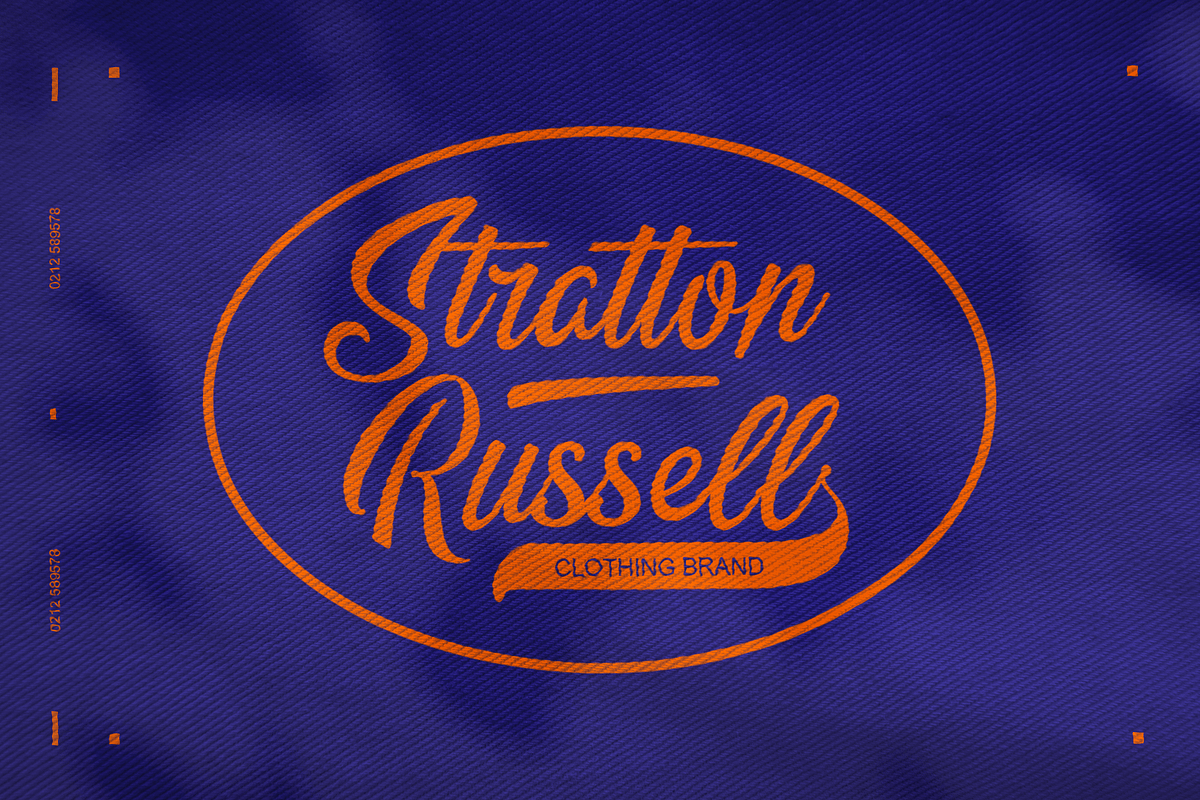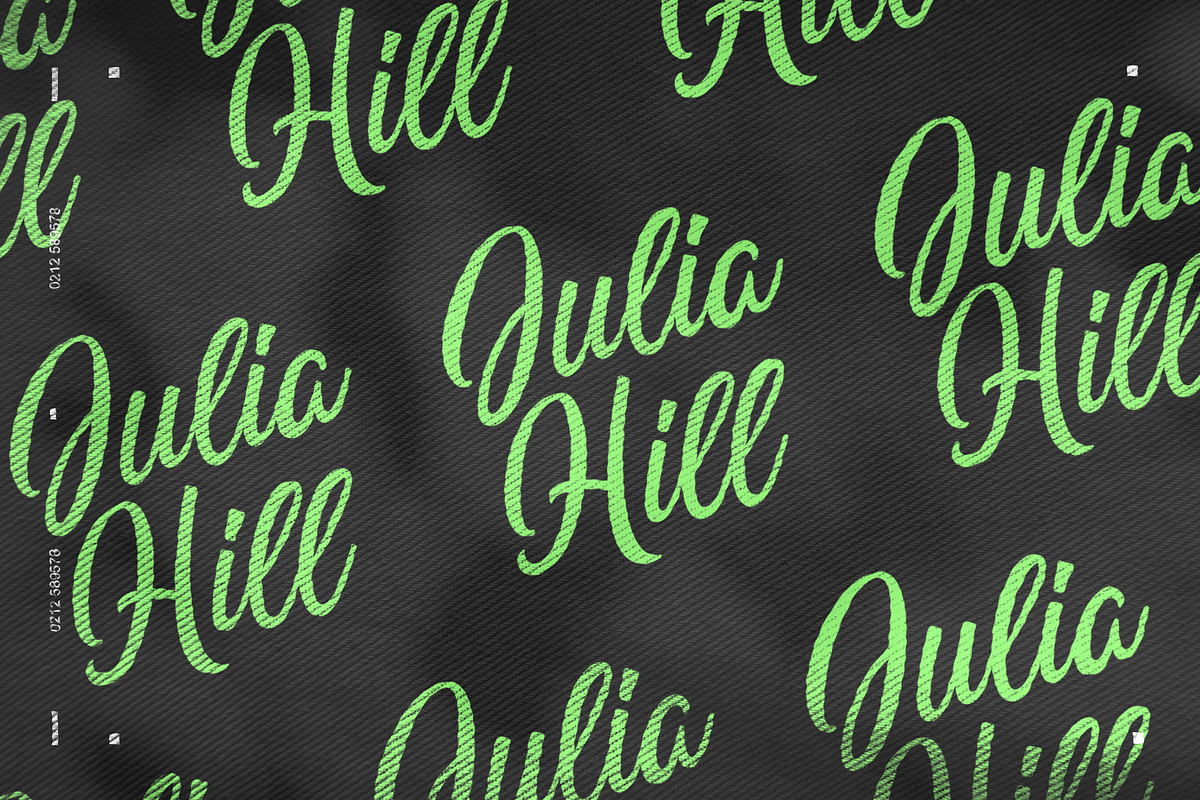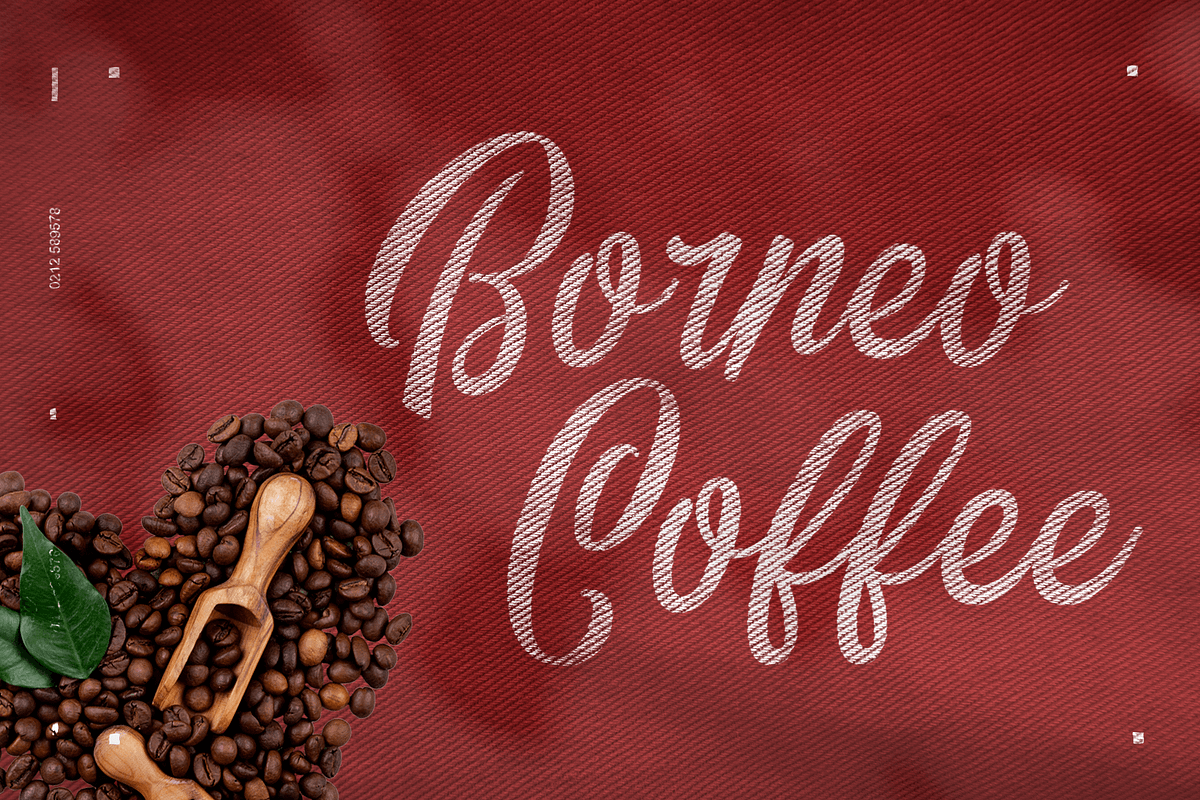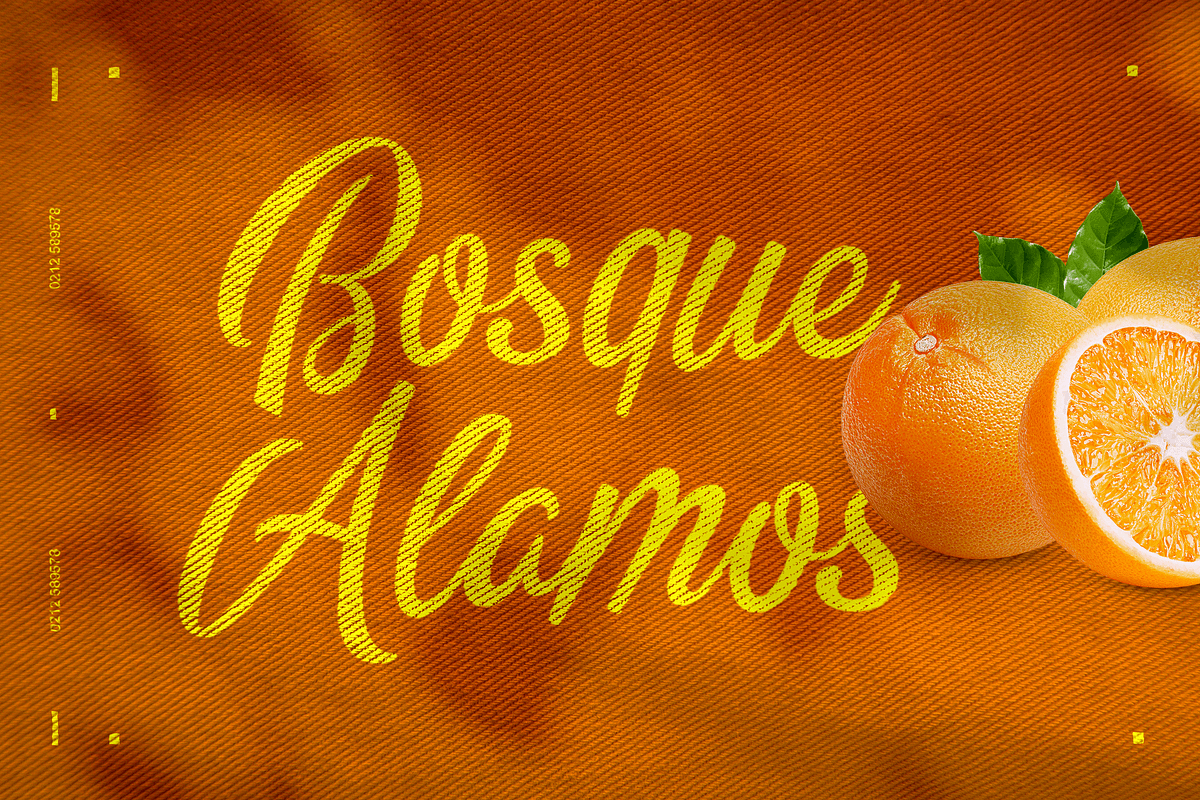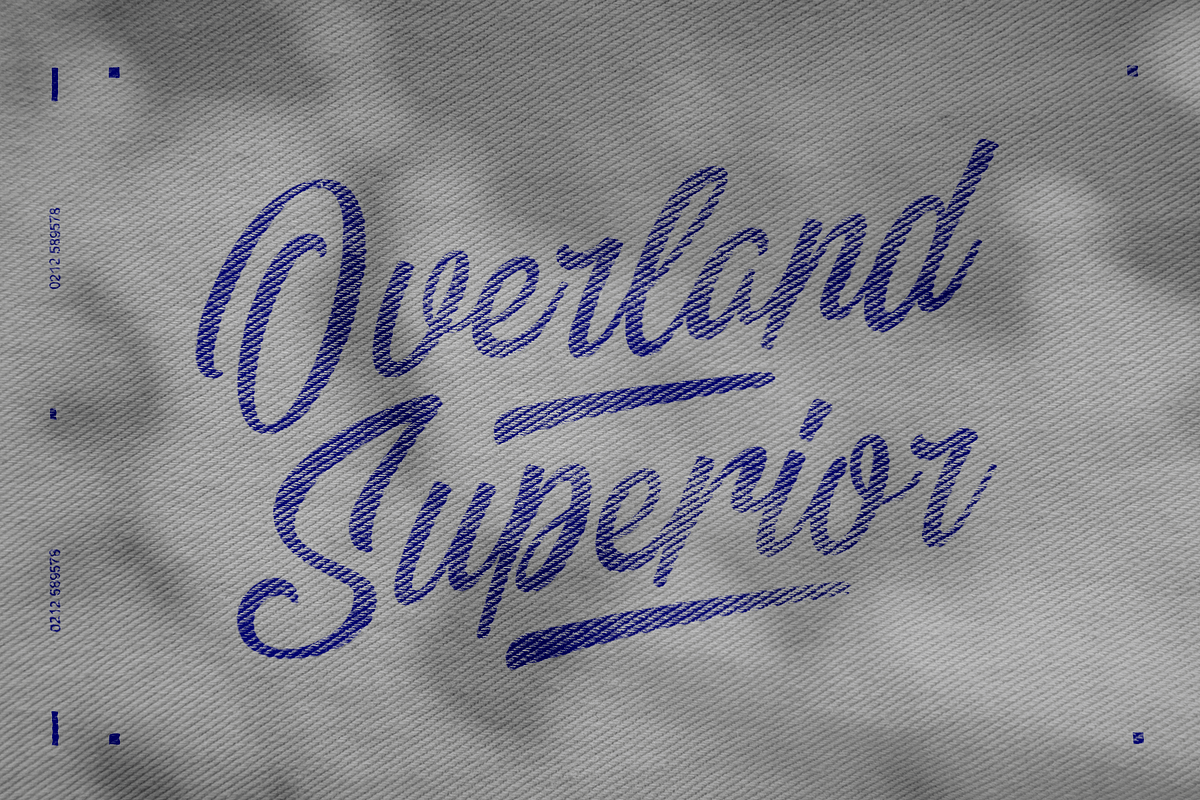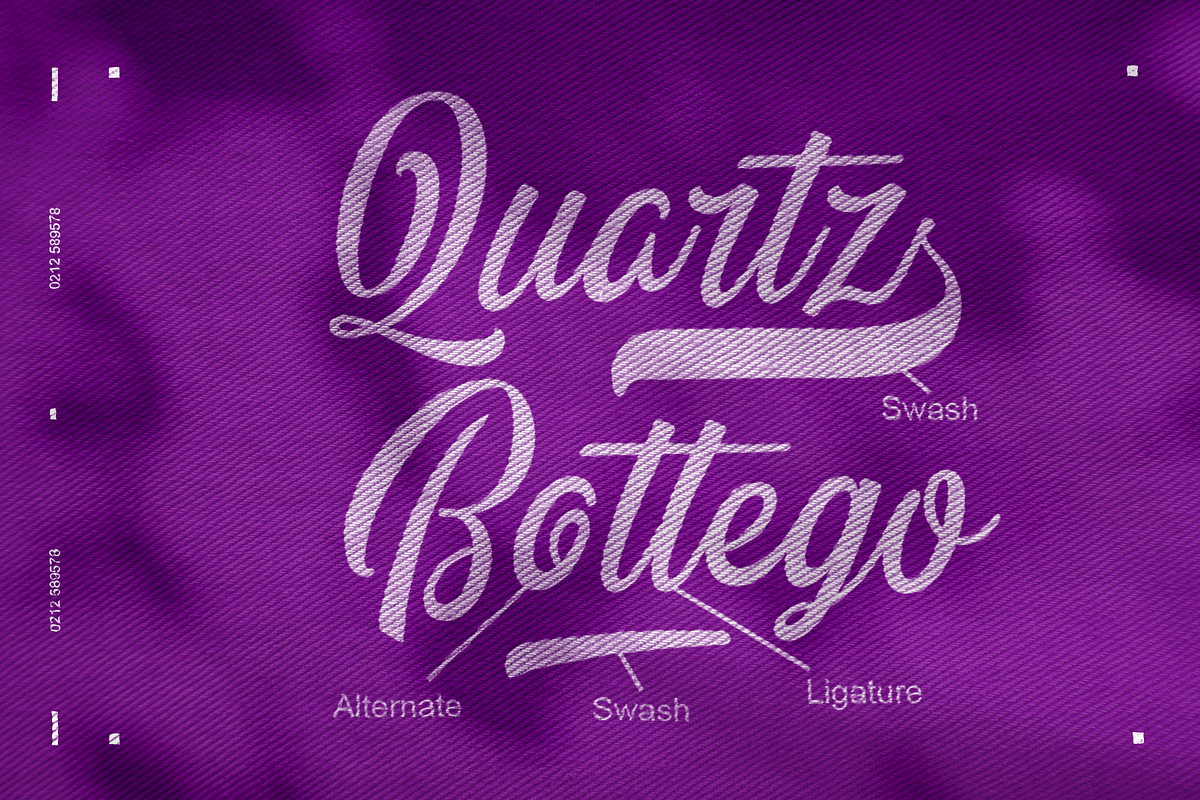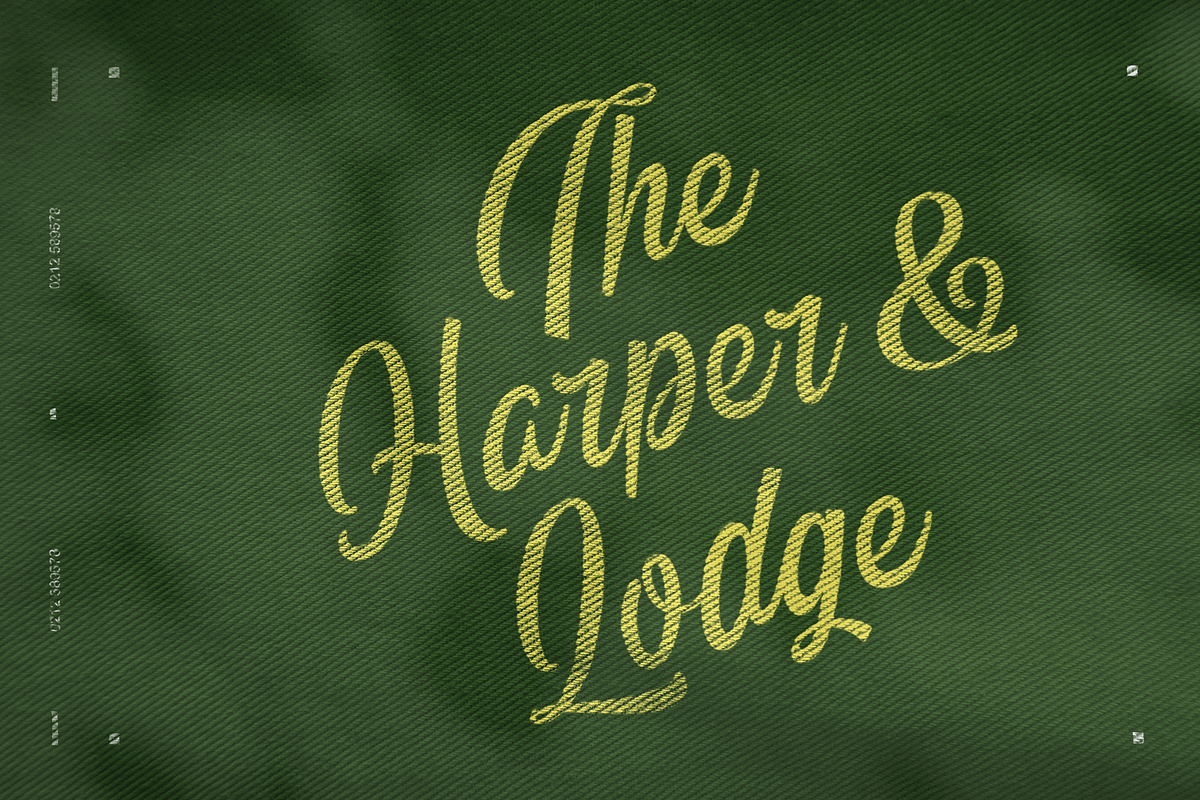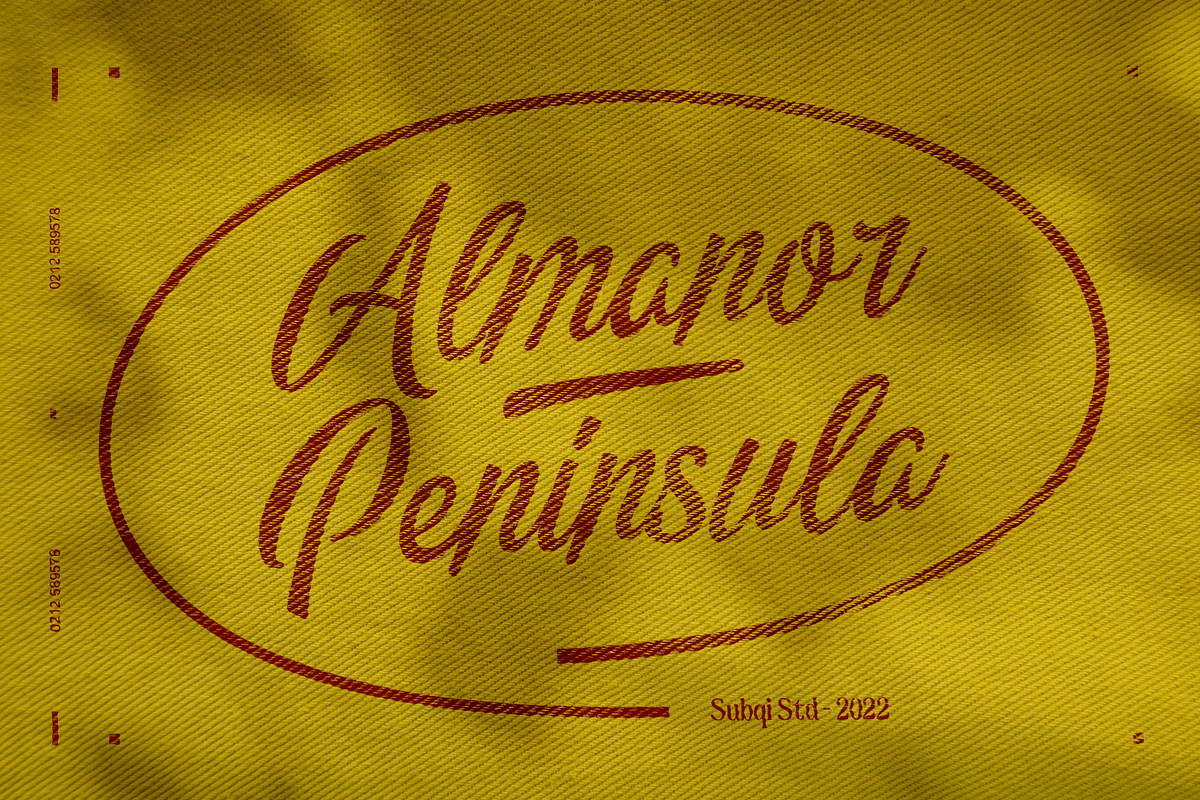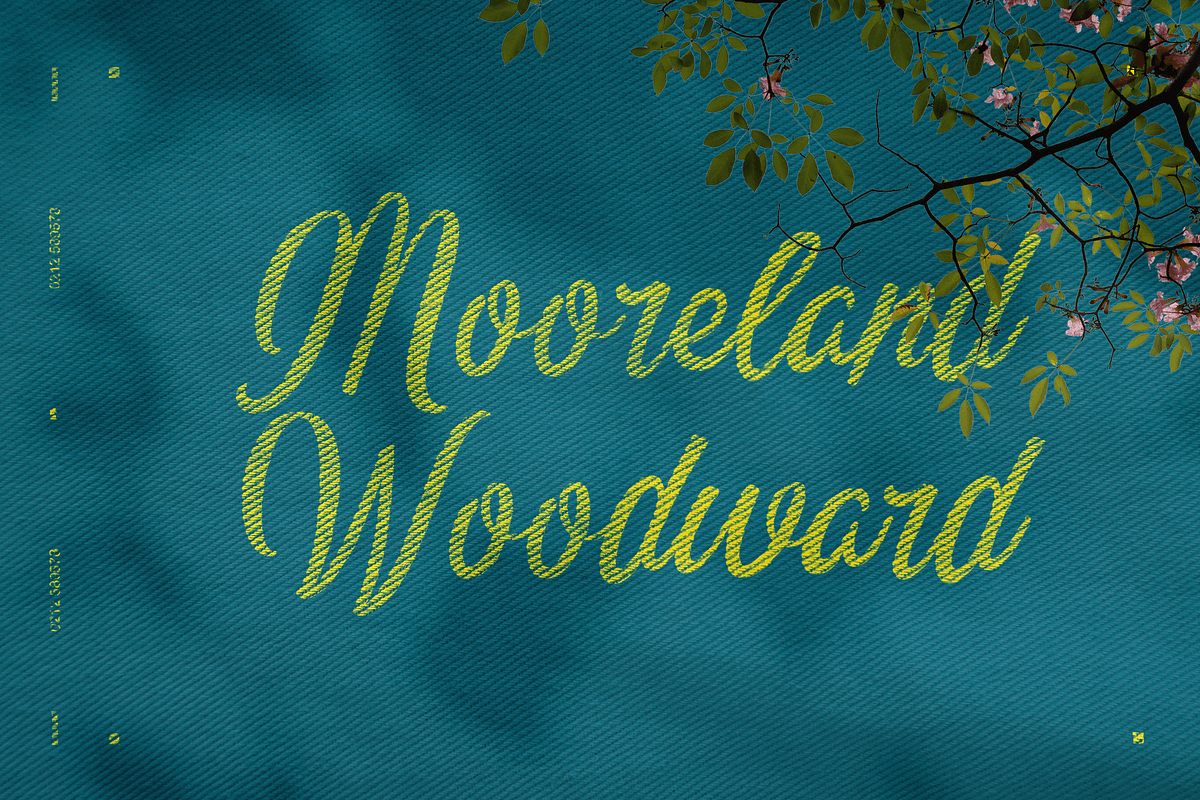
Almanor Peninsula
Introducing our new font, Almanor Peninsula . Not too shabby a name, right? A display logotype script, not too bold and not too thin either. This font has been created for your sporty display projects, whatever they may be. This font contains the basic script ligature 'tt' with some necessary alternates here and there. Plus some swash for the cherry on top. This font is PUA encoded already, so you can access all the glyphs with the basic character map apps. So have fun with this one !